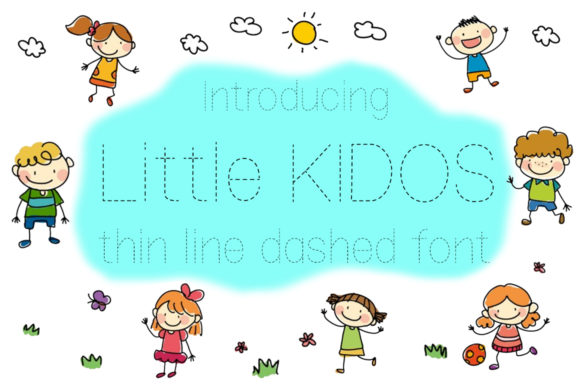
Feast your eyes on Little Kidos, a font that exudes elegance and playfulness in equal measure, poised to transport your artistic endeavors to dizzying heights. Crafted with meticulous precision, this font commands attention with its light and airy structure, leaving a lasting impression that will captivate your audience.
Experience the boundless versatility of Little Kidos, a font that seamlessly transitions from enchanting children's books to lively educational posters, effortlessly capturing the essence of wonder and imagination. Its svelte and graceful lines lend themselves perfectly to creating eye-catching social media posts and website headers that radiate warmth and charm, leaving an enduring imprint on your online presence.
Little Kidos possesses an inherent charm that lends itself effortlessly to a multitude of creative pursuits. Whether you seek to craft heartfelt greeting cards, design whimsical invitations, or produce captivating logos that exude personality, this font stands ready to elevate your creations to new heights of visual appeal. Little Kidos is your secret weapon, transforming mundane projects into extraordinary expressions of artistry.
As a font, Little Kidos is more than just a collection of characters; it's an open invitation to explore the boundless realms of creativity. Its delicate strokes and graceful curves inspire a sense of nostalgia, while its contemporary flair ensures it remains firmly rooted in the present. Let Little Kidos be your muse, guiding you through a journey of creative expression where imagination knows no bounds.